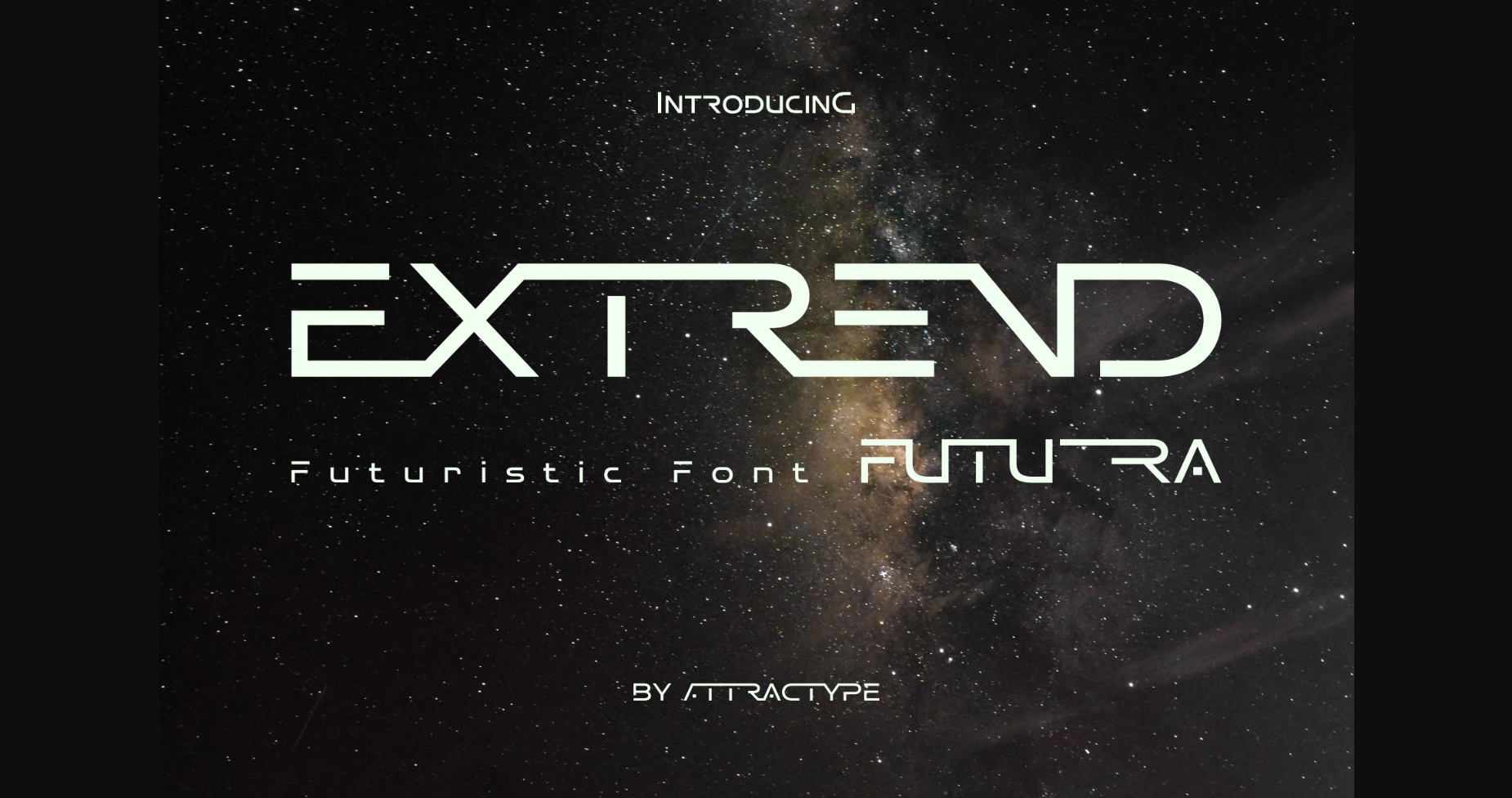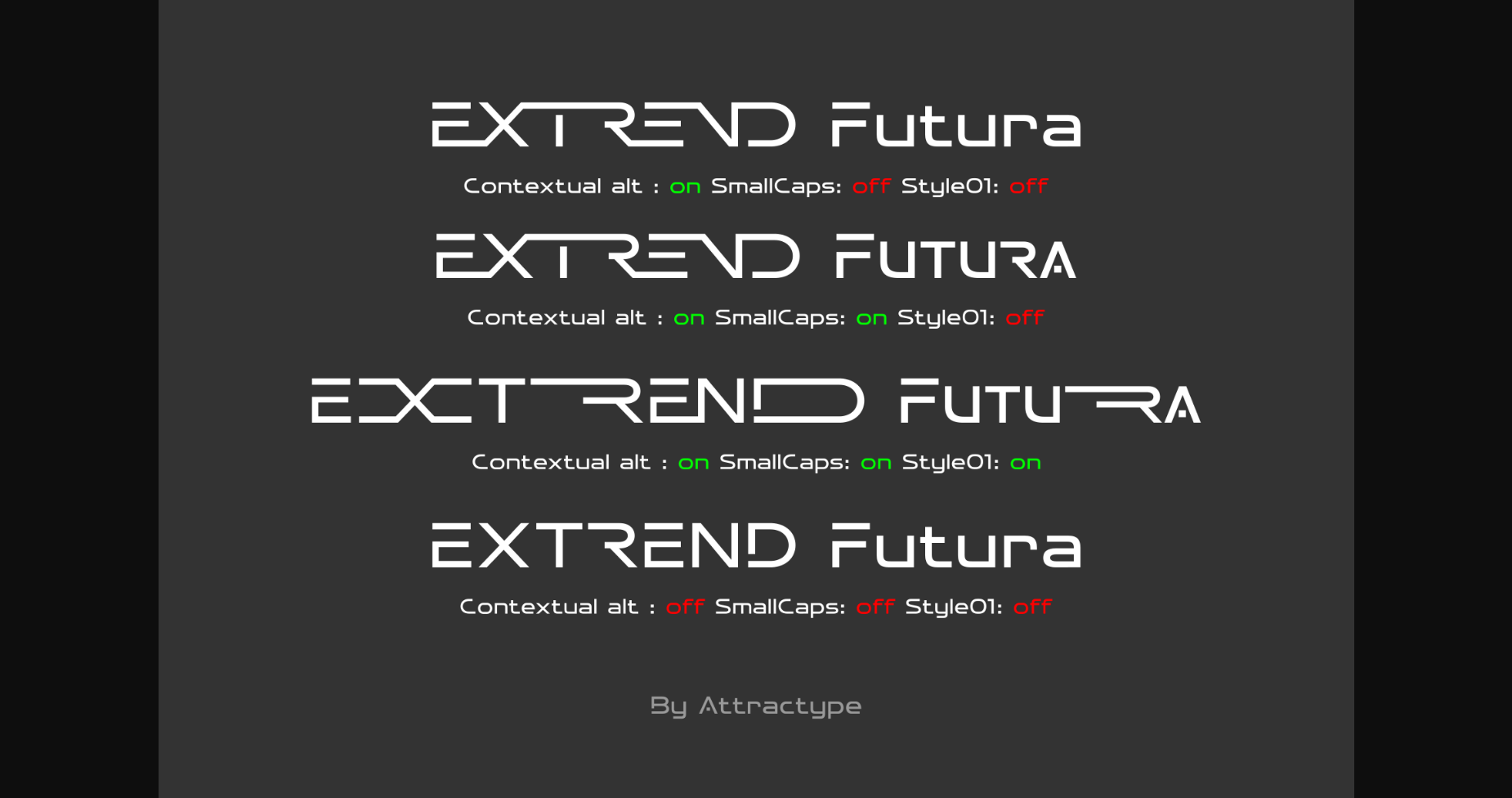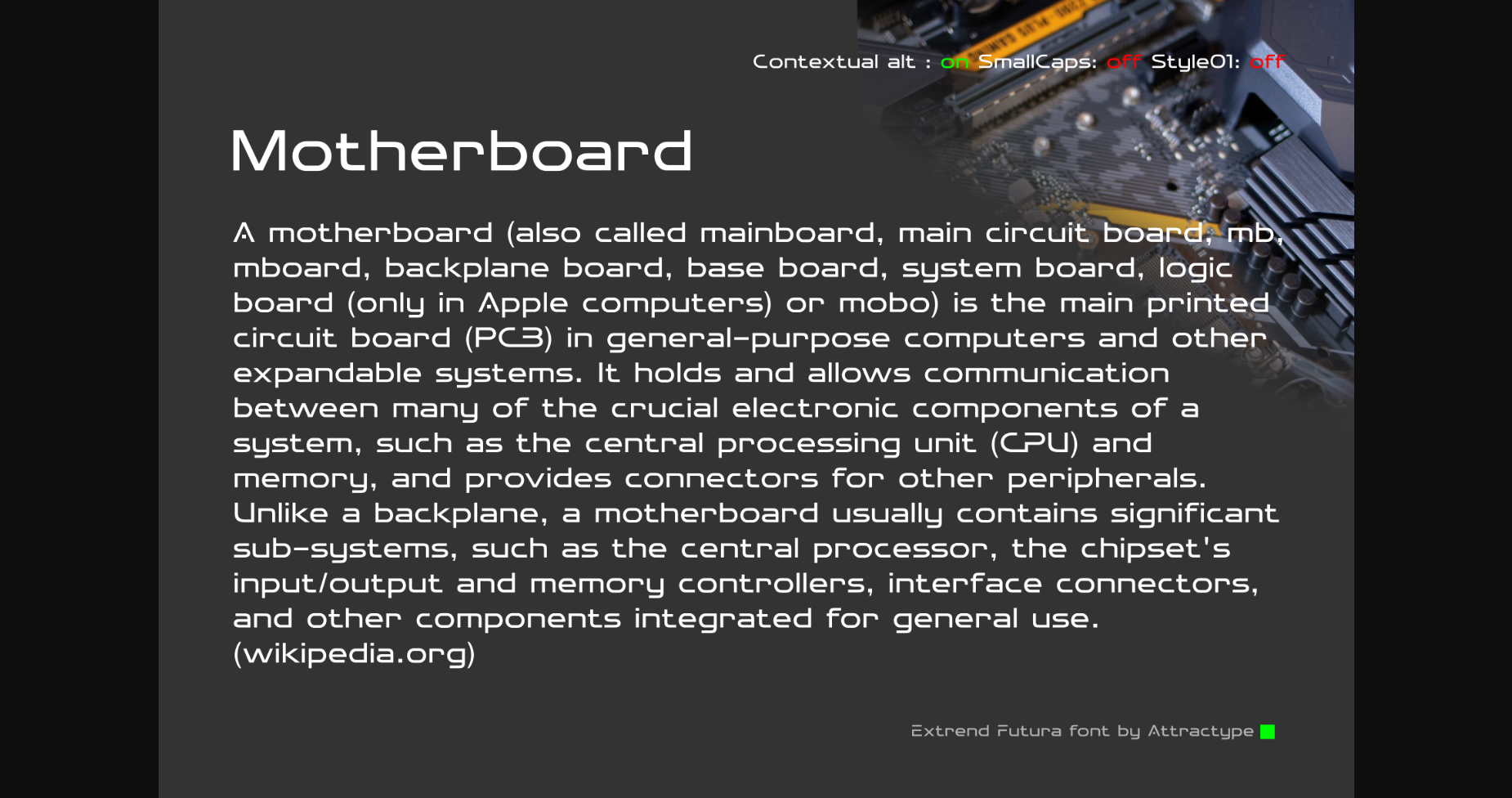
About Extrend Futura Font
Extrend Futura is the perfect font for the future: a sleek and modern sans-serif font with bold edges and a futuristic feel. Perfect for creating eye-catching visuals and captivating designs. Let the power of this cutting-edge font take your work to the next level. It is also PUA encoded which means you can access all of the glyphs and swashes with ease!